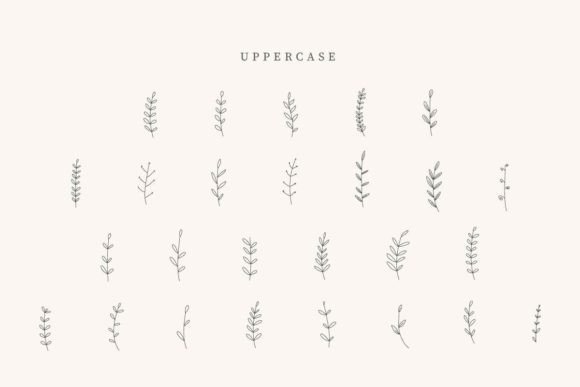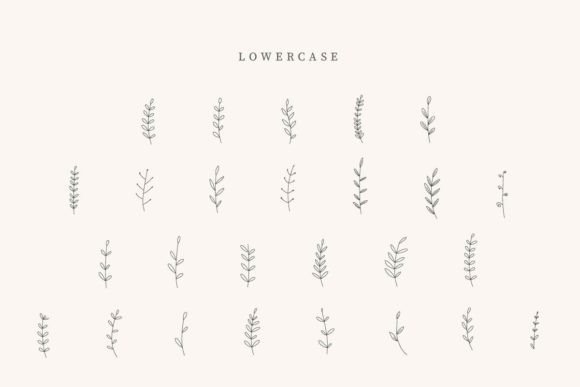
Introduction to Mom Divider Font
Invite vintage vogue into your creative journey with the enchanting charm of Mom Divider — an ornamental font drenched in the refined aesthetics of the past.
Mirroring the captivating elegance of antique plant motifs, this masterfully curated font marries perfectly with your artistic passion and craft projects Infuse a touch of historical charm into your decor or visionary concepts with Mom Divider, and immerse in the evergreen fascination of a time gone by.
Key Features of Mom Divider Font